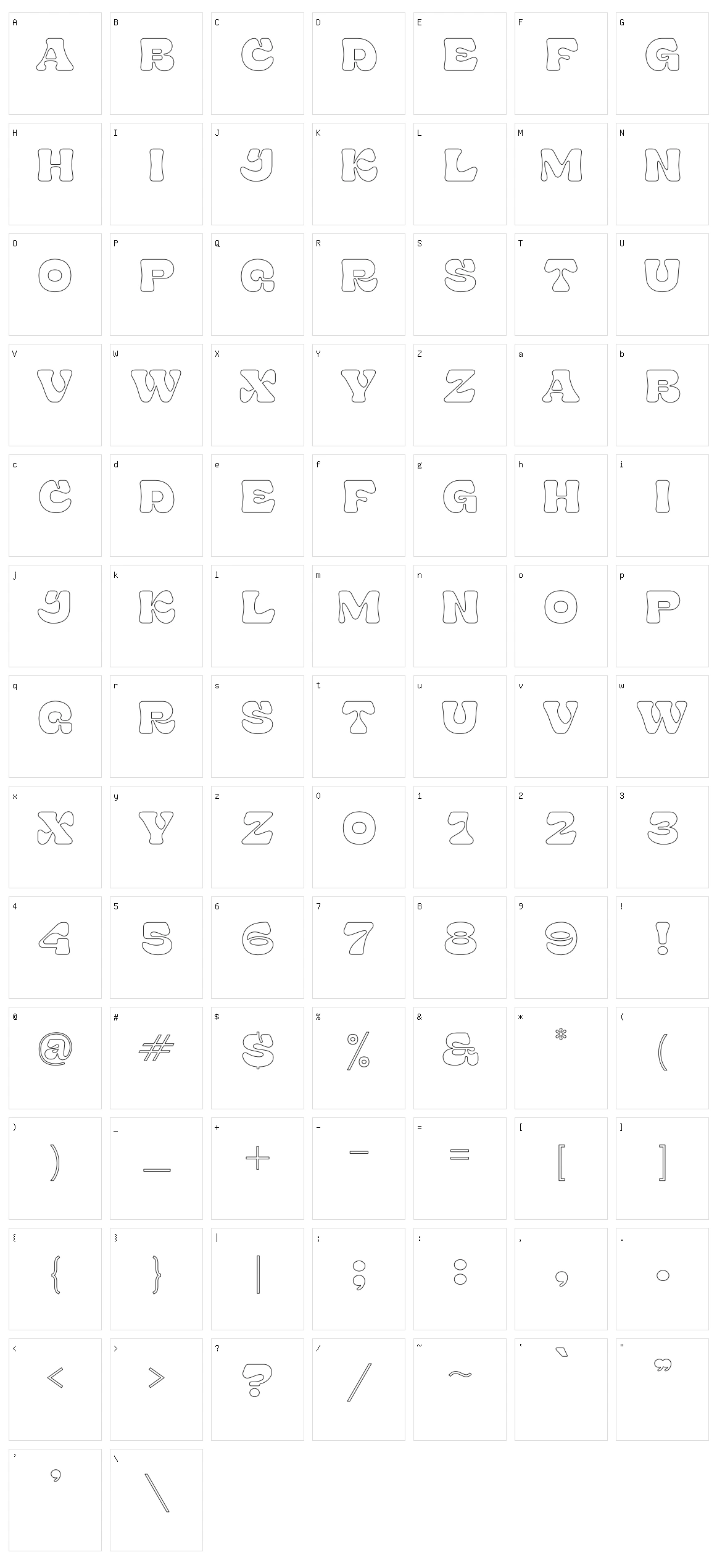
Introducing ÒStora TypefaceÓ
Stora is a new display typeface with mid-19th century styles with strong, unique shapes, that can handle a lot of design projects. Together or apart, the fonts are perfect for an authentic retro feel on your branding purpose, advertising, poster design, book covers, headlines, prints, merchandise, websites, magazine, album covers, quote designs and more.
OPENTYPE FEATURES : Stora Typeface has also been coded to include some of double letter ligatures and of course the stylistic set of lowercase alternate characters.
Stora Typeface includes multilingual support.